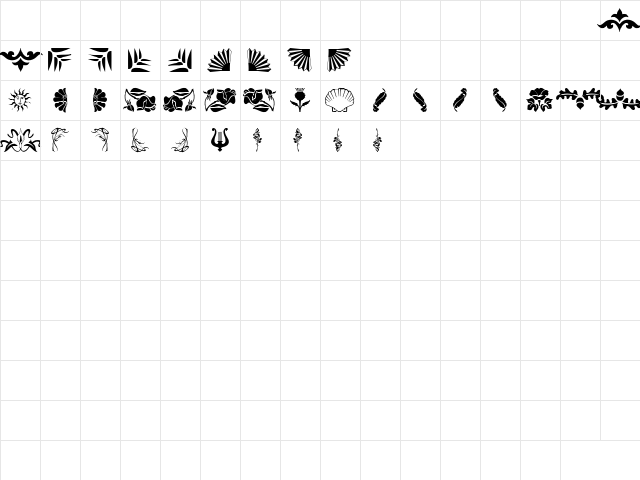
FloraDings Regular
Design Context for FloraDings
FloraDings is a composed and adaptable typeface that performs quietly and consistently across a wide range of design contexts.